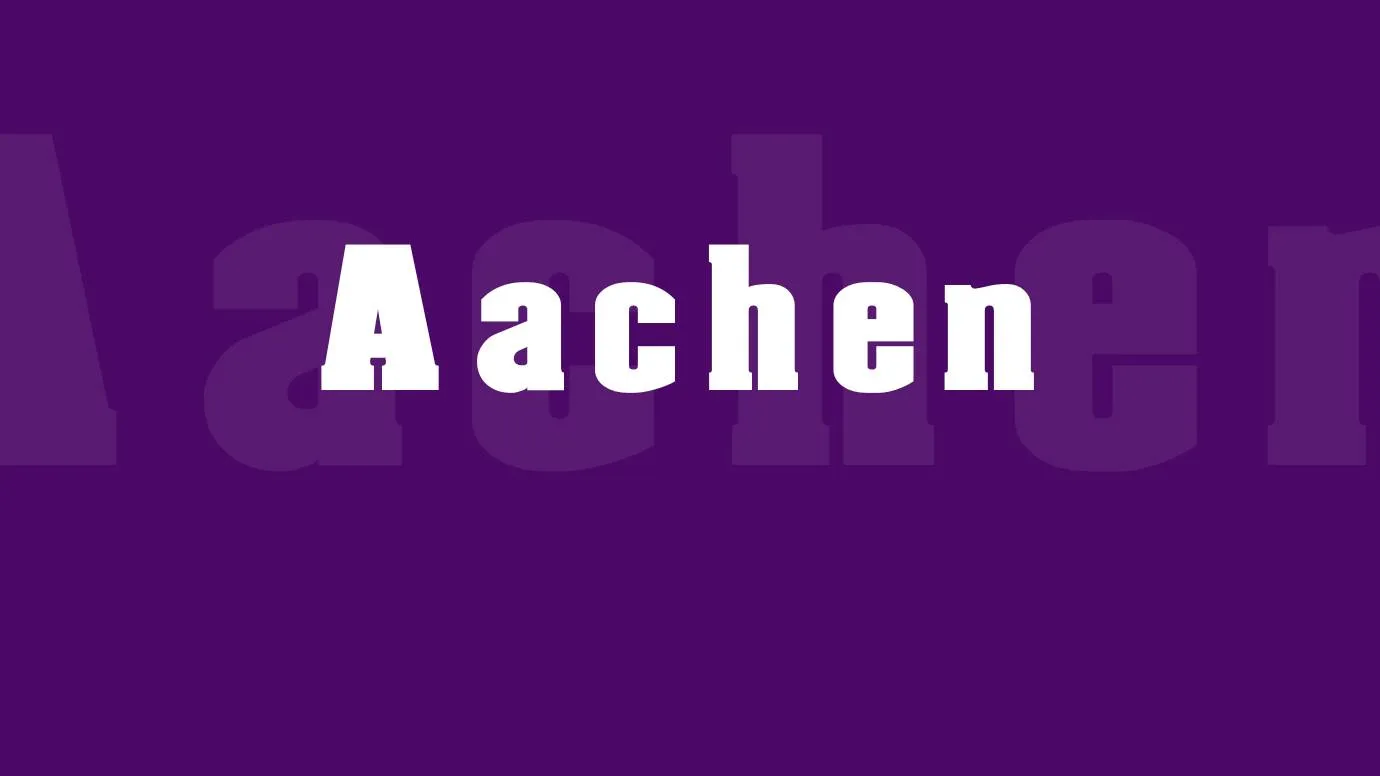
Aachen stands out as a remarkable family of slab serif typefaces, created in 1969 by renowned type designers Alan Meeks and Colin Brignall, and released by the International Typeface Corporation.
This font family has always had masculine sporty feels to it, perfect for sport product designs, brands, and great headlines. For adding a traditional look to any design, you must try this amazing typeface with the combination of Din font.
| Name | Aachen Font |
| Designer | Alan Meeks, Colin Brignall |
| Foundry | International Typeface Corporation |
| Style | Slab Serif |
| Date Released | 1969 |